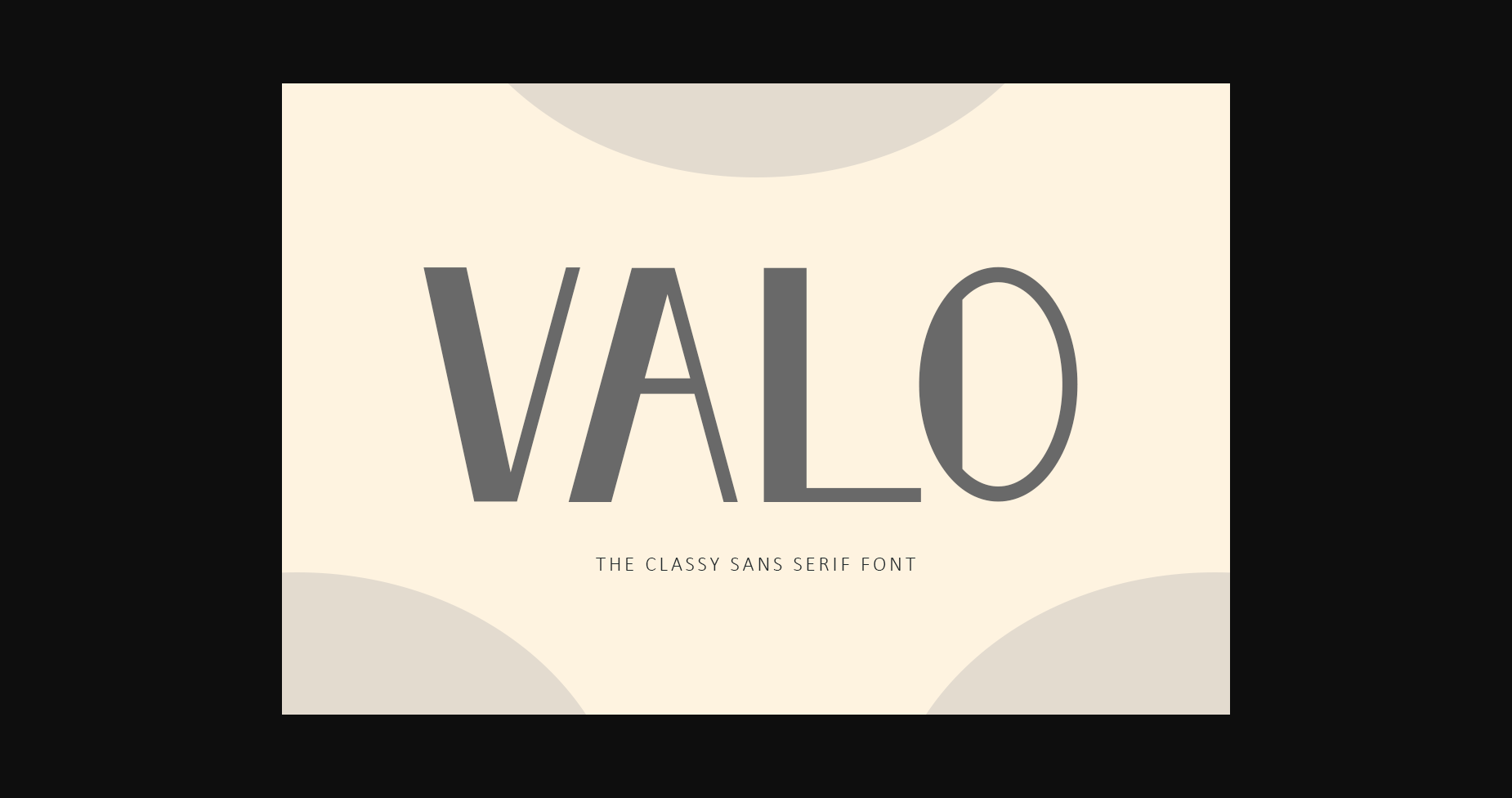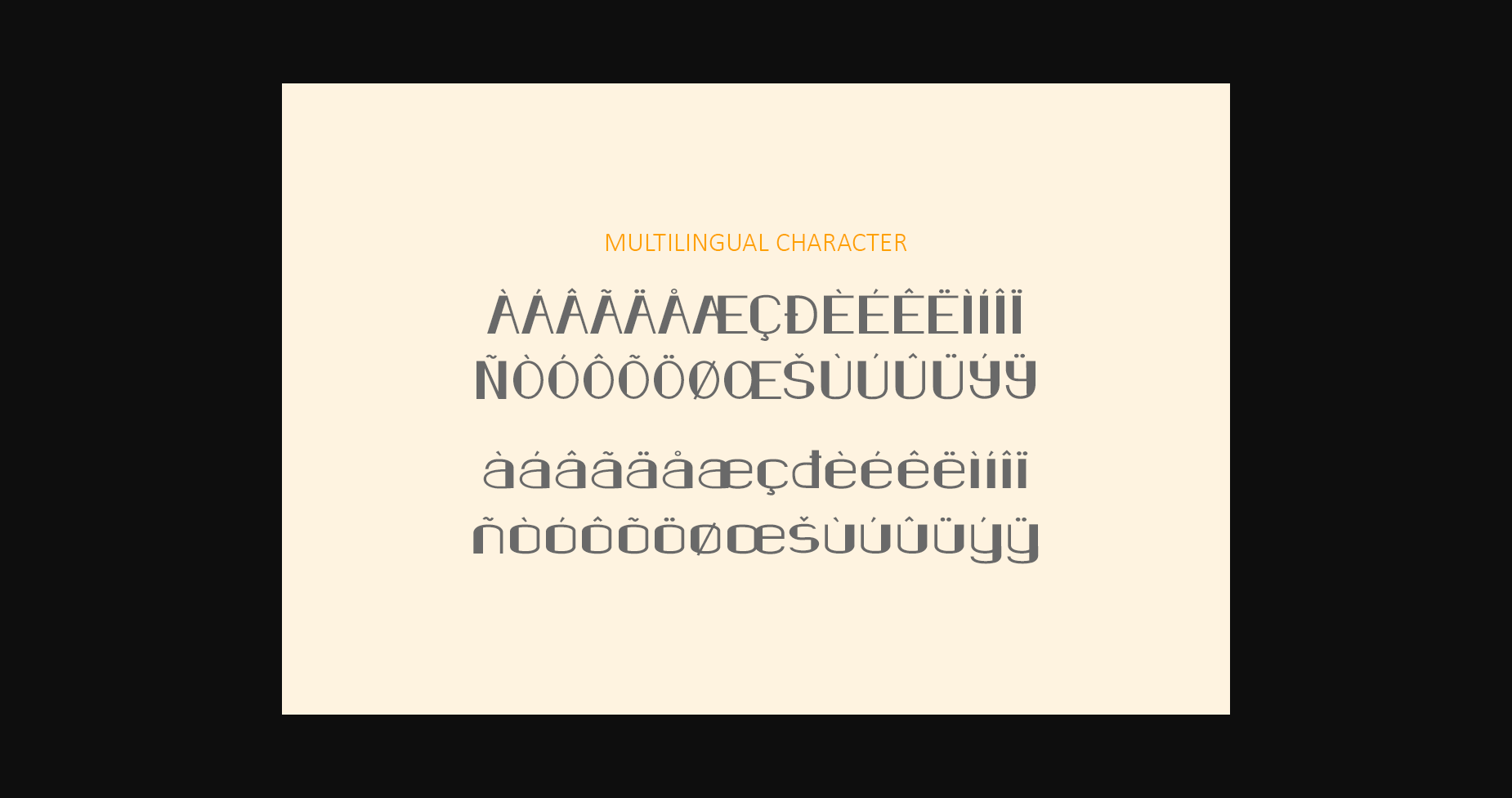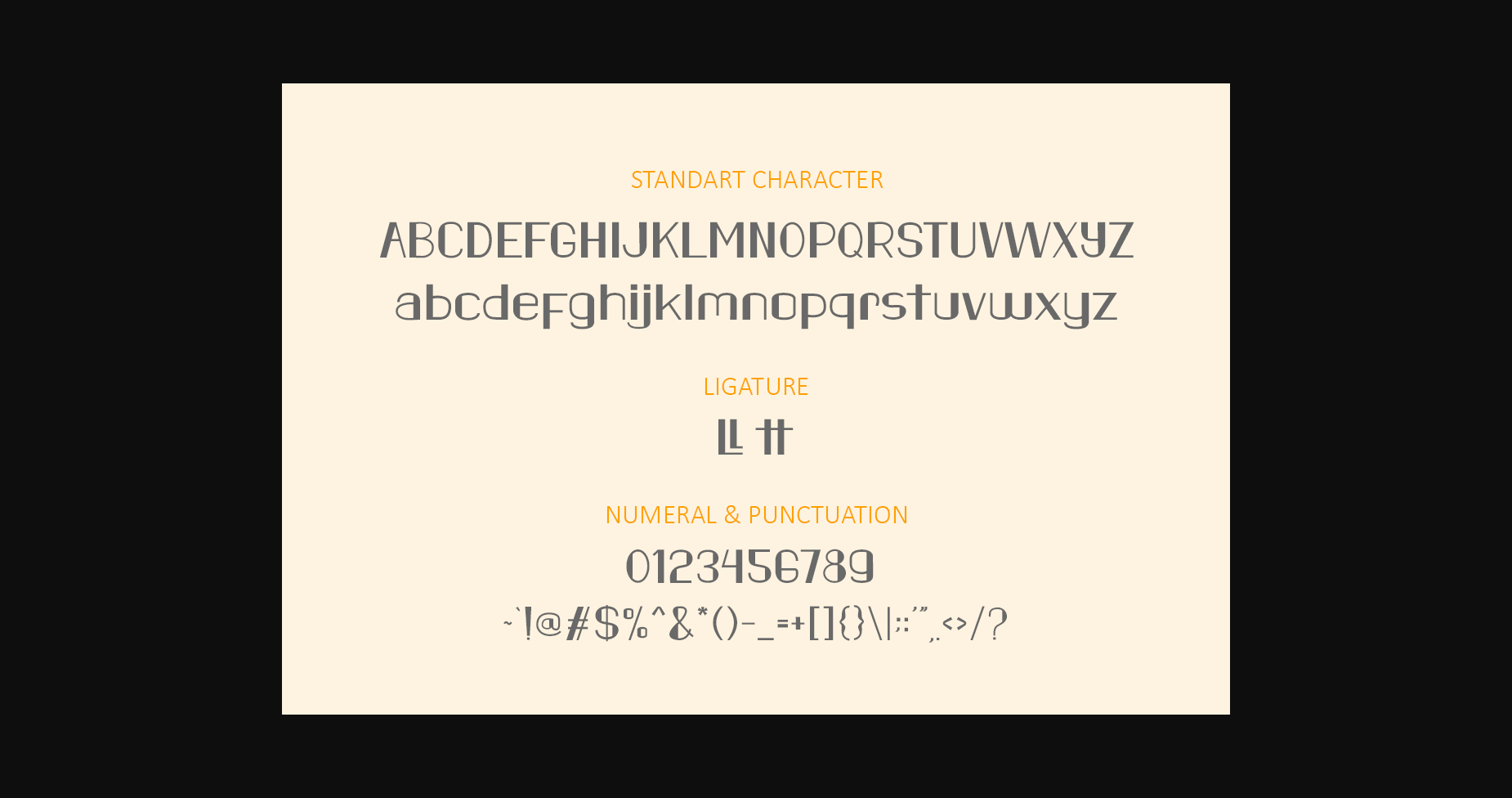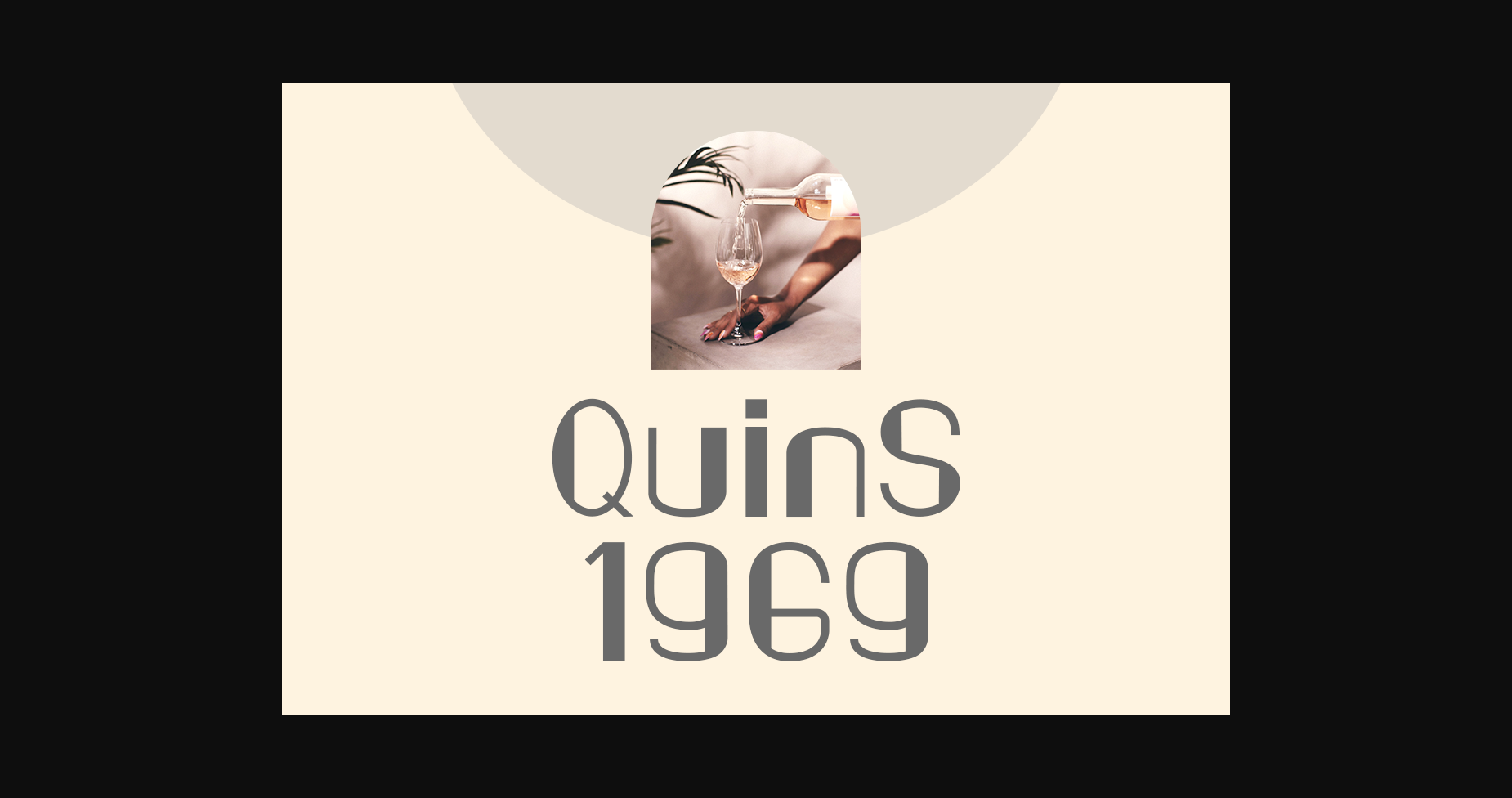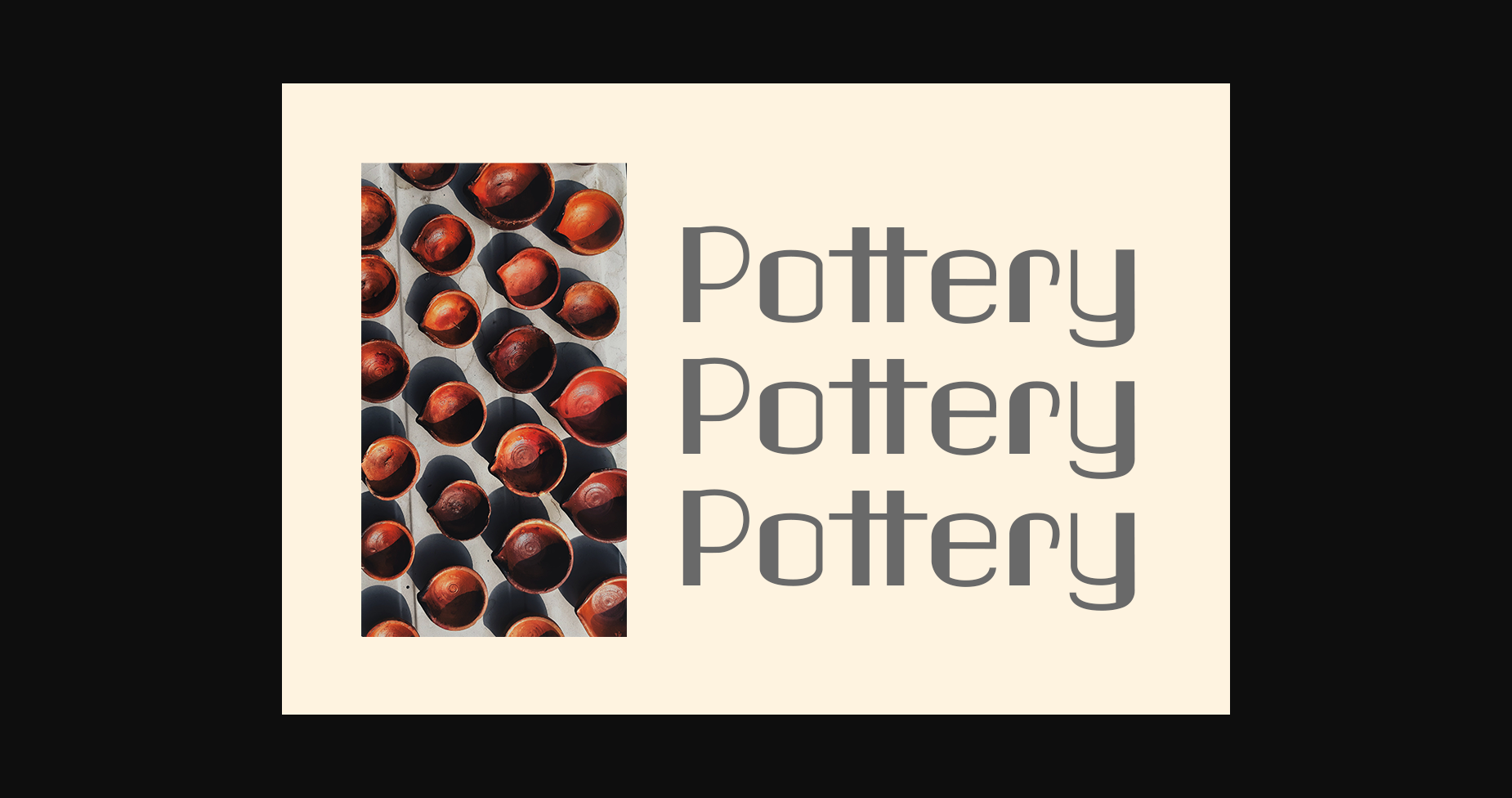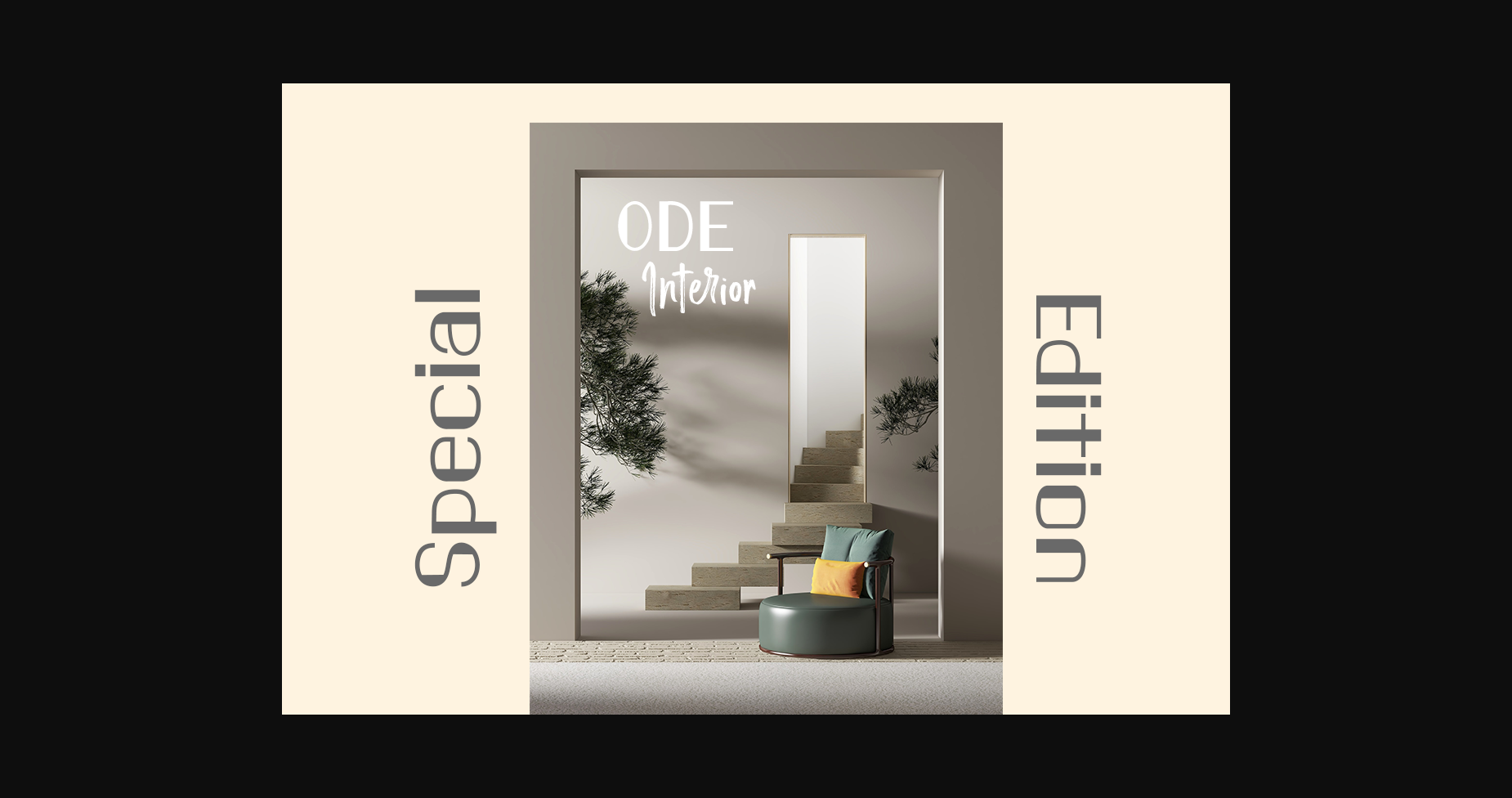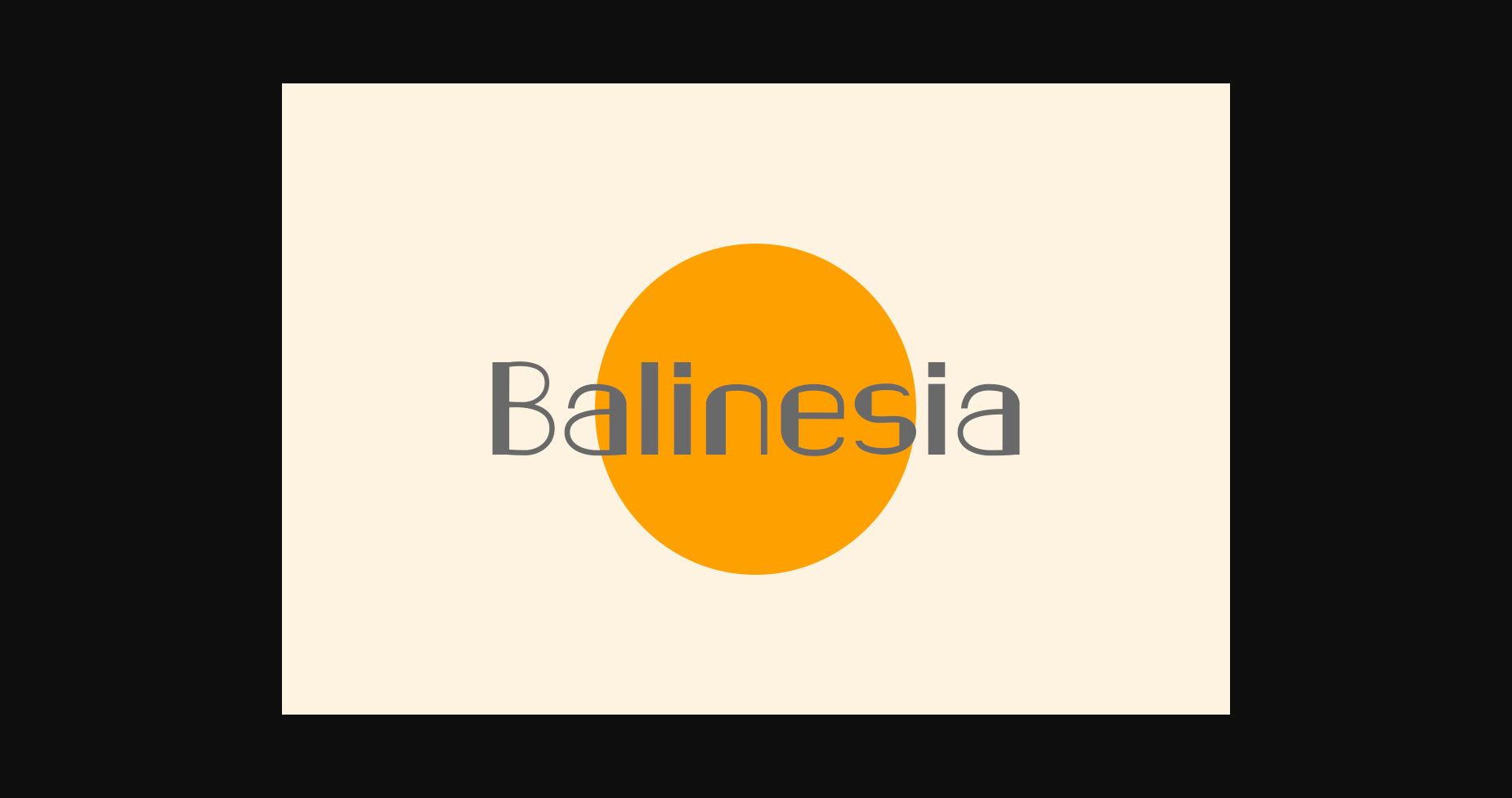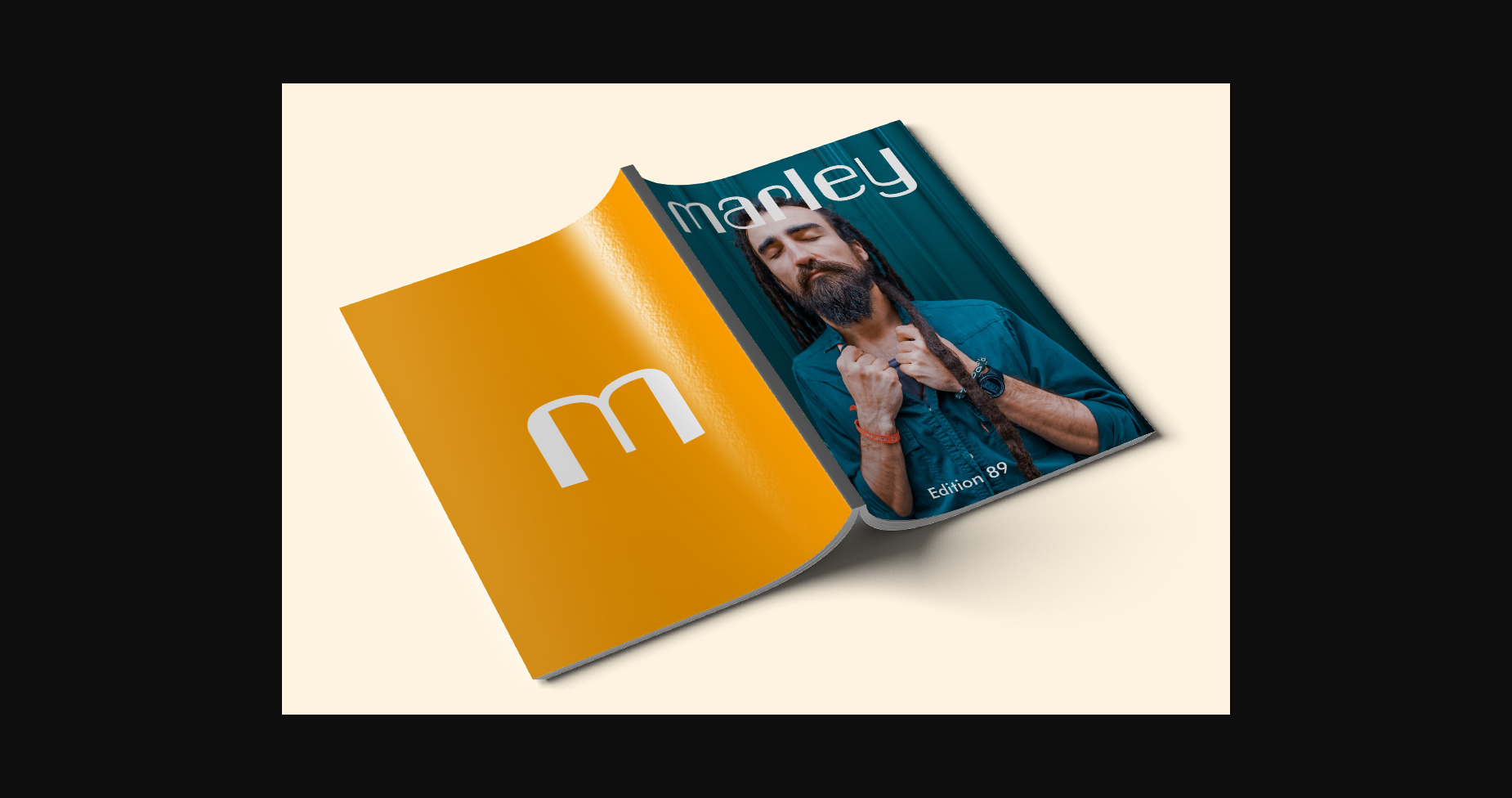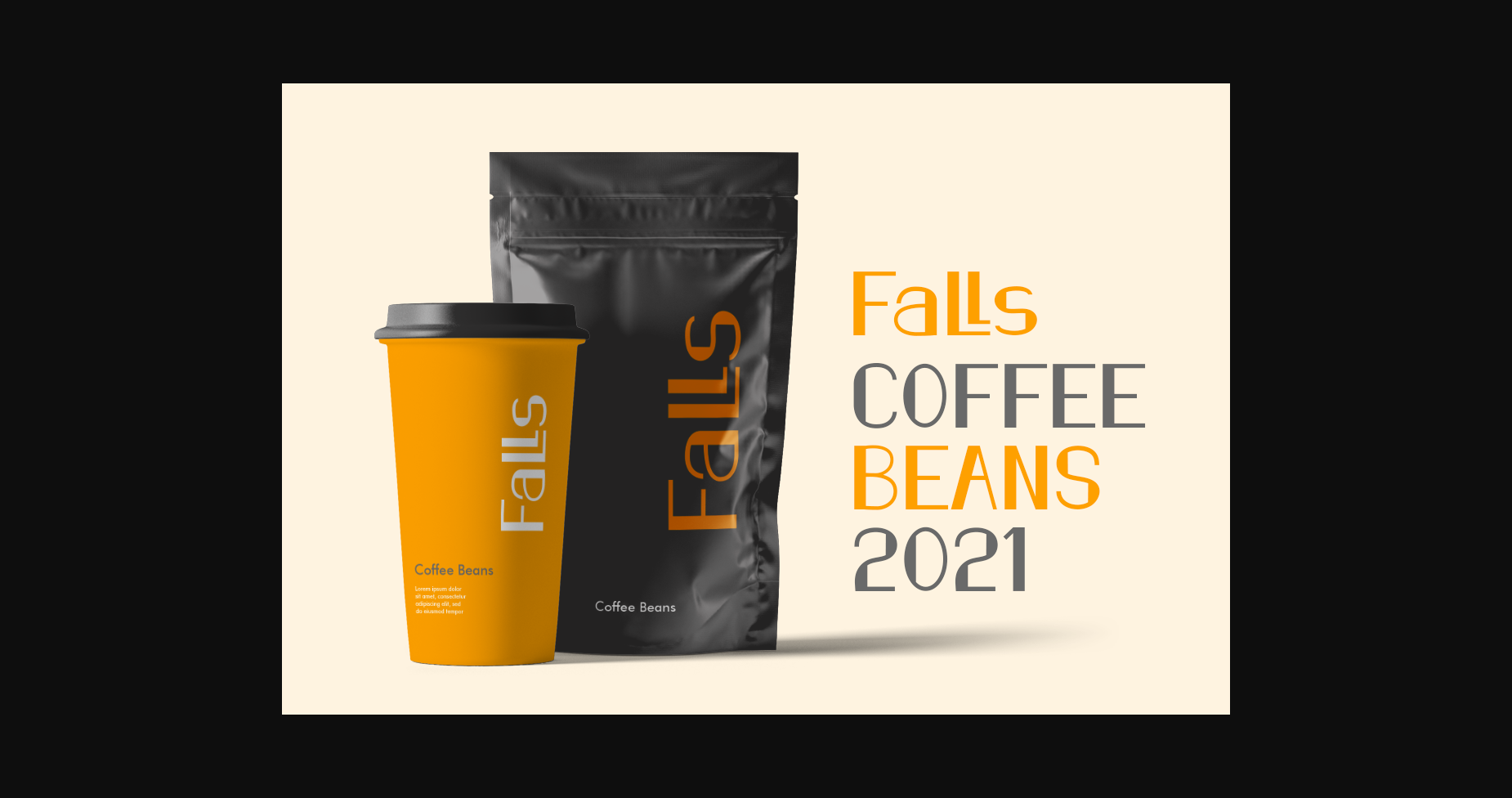
HomeSans Serif FontsValo Font Sans Serif Fonts Valo Font FacebookXPinterestWhatsApp 1 of 11 ... Valo Font Poster 2... Valo Font Poster 3... Valo Font Poster 4... Valo Font Poster 5... Valo Font Poster 6... Valo Font Poster 7... Valo Font Poster 8... Valo Font Poster 9... Valo Font Poster 10... Valo Font Poster 11... About Valo Font Valo is a classy and adaptable sans serif font. Whatever the topic, this font will be a wonderful asset to your font library, as it has the potential to enhance any creation. DOWNLOAD NOW People also explored Vintage Photography Studio Handmade Font Valentine Font Figuta Font Lembang Font Selamet Lebaran Font Loughalot Font Saarah Font Bellina Font 348 0 TagsValoValo Font Previous articleBoho Auntumn FontNext articleGarold Font LEAVE A REPLY Cancel reply Comment: Please enter your comment! Name:* Please enter your name here Email:* You have entered an incorrect email address! Please enter your email address here Website: Save my name, email, and website in this browser for the next time I comment. Personal Use Free Feather Script Personal Use Free Read more about this font The Bocah Personal Use Free Read more about this font Starborn Font Personal Use Free Read more about this font Gupis Personal Use Free Read more about this font BLOG 5 Fonts That Will Dominate Design Trends in 2026 5 Fonts for 2026 That Will Dominate Design Trends Typography plays a critical role in visual communication, and as we look ahead to 2026, it’s... The 10 Best Handwriting Fonts to Add Personality to Your Designs Top 10 Handwritten Fonts That Elevate Your Designs Exploring Font Trends